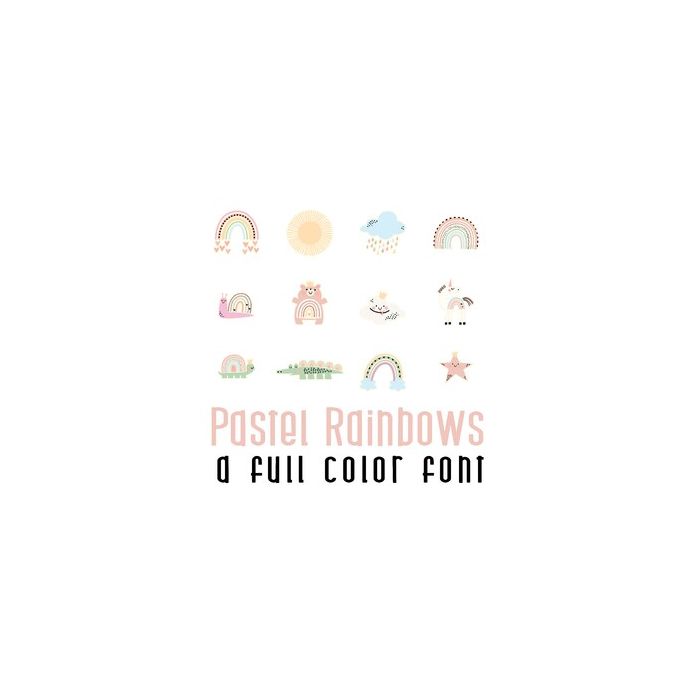
This adorable full-color doodlebat font features 26 rainbow animals. Perfect for cards, crafts, gifts, decor, scrapbook pages, planner stickers, and more!